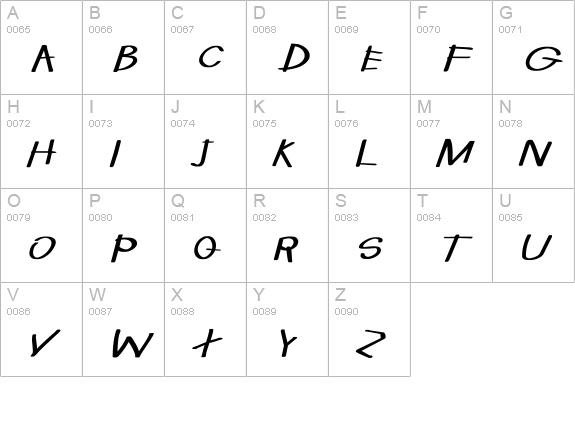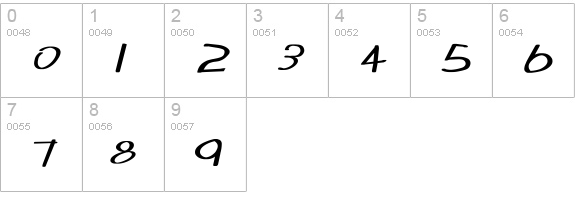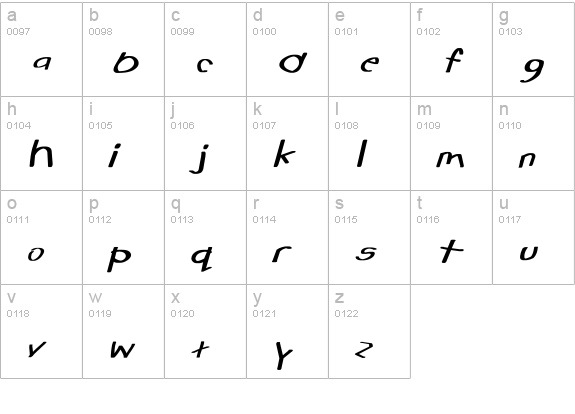
Tabatha Wd Bold Italic is a strong, high-contrast, italic variant in the Tabatha typeface family \xE2\x80\x94 well suited to headlines, attention-grabbing titles, and strong calls-to-action.
Tabatha Wd Bold Italic font is a stunning and eye-catching typeface that exudes elegance and sophistication. Its bold and italic design adds a touch of flair to any project, making it perfect for both professional and creative endeavors. The intricate details of Tabatha Wd Bold Italic font showcase the skill and craftsmanship that went into its creation. The bold strokes are carefully balanced with the delicate curves, resulting in a harmonious and visually pleasing composition. This font is not only visually appealing but also highly versatile. It is ideal for a wide range of applications, including headlines, logos, branding materials, packaging, and more. Its distinctive style will captivate the attention of viewers and leave a lasting impression. What makes Tabatha Wd Bold Italic font even more appealing is that it is available for free download at FontsMarket.com. This means that you can enhance your projects with this exceptional font without spending a dime. FontsMarket.com offers a wide variety of fonts, and Tabatha Wd Bold Italic font is just one of the many gems you can find on their website. Whether you are a graphic designer, a creative professional, or someone looking to add a touch of sophistication to their personal projects, Tabatha Wd Bold Italic font is a must-have. Its combination of boldness and italics creates a unique and captivating visual experience that is sure to elevate any design. Don't miss out on the opportunity to enhance your work with this remarkable font – download Tabatha Wd Bold Italic font for free at FontsMarket.com today!